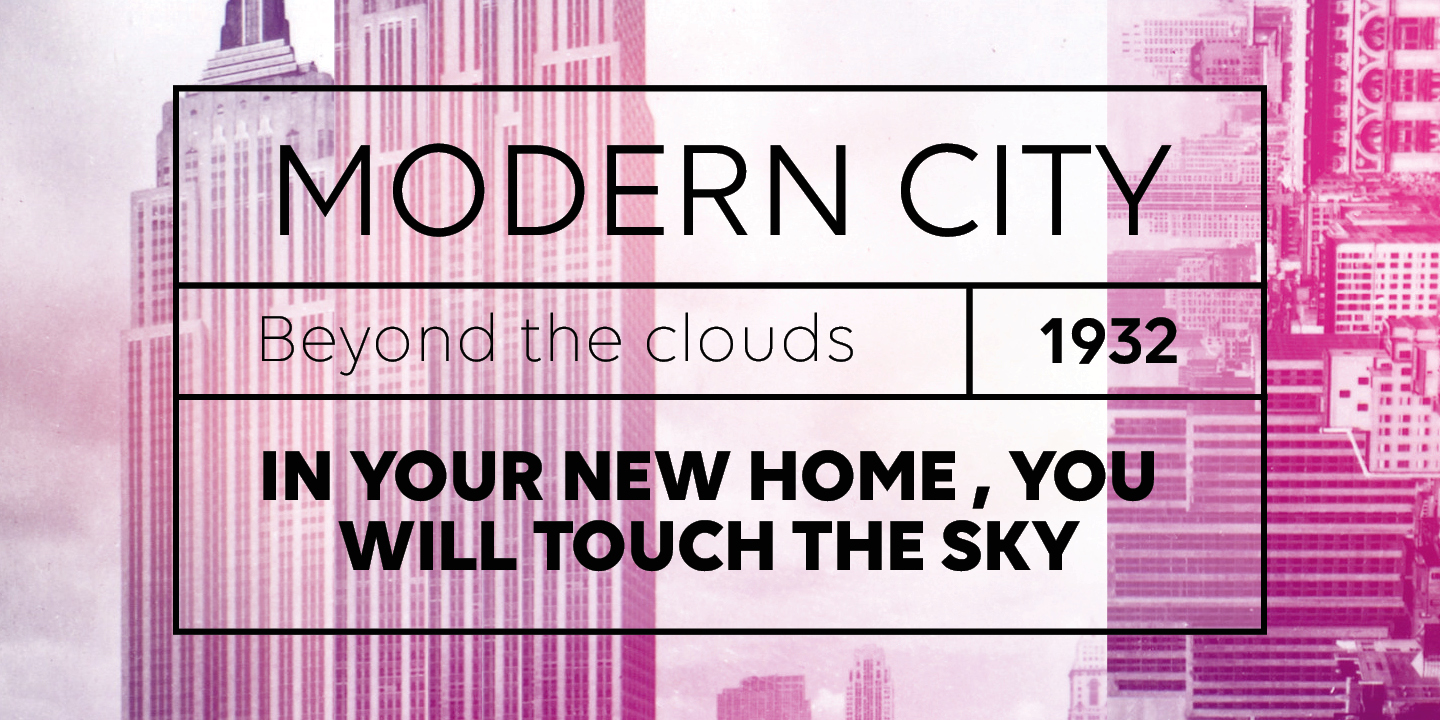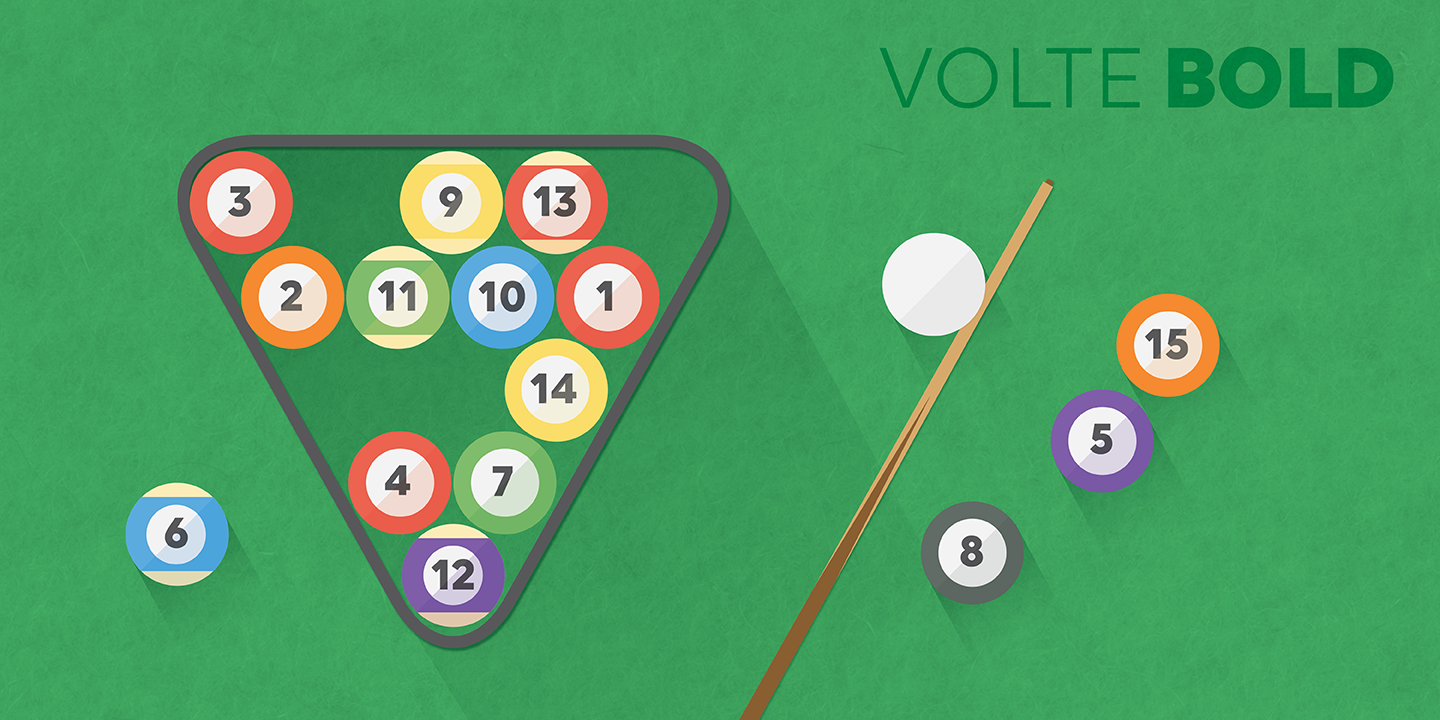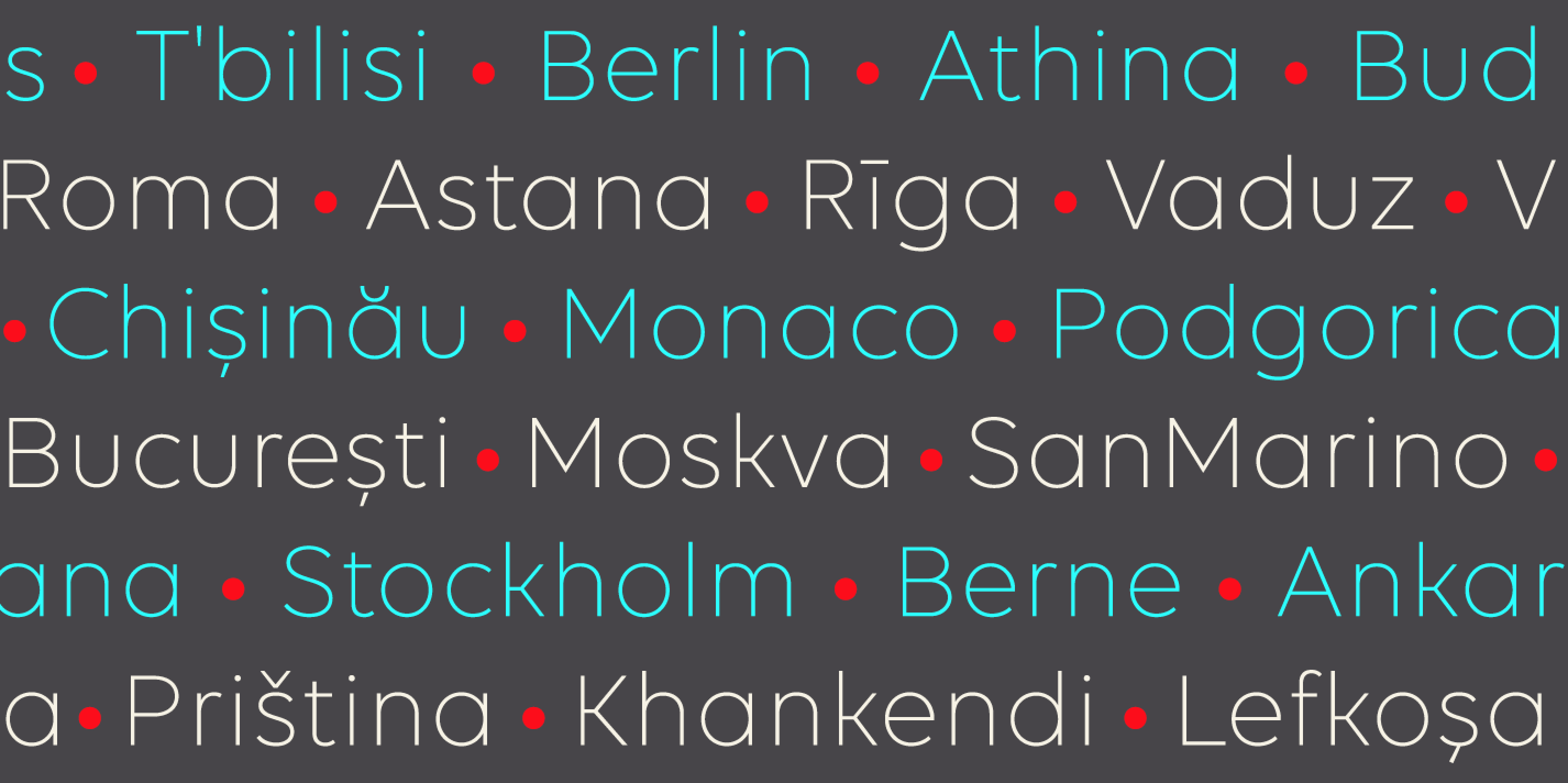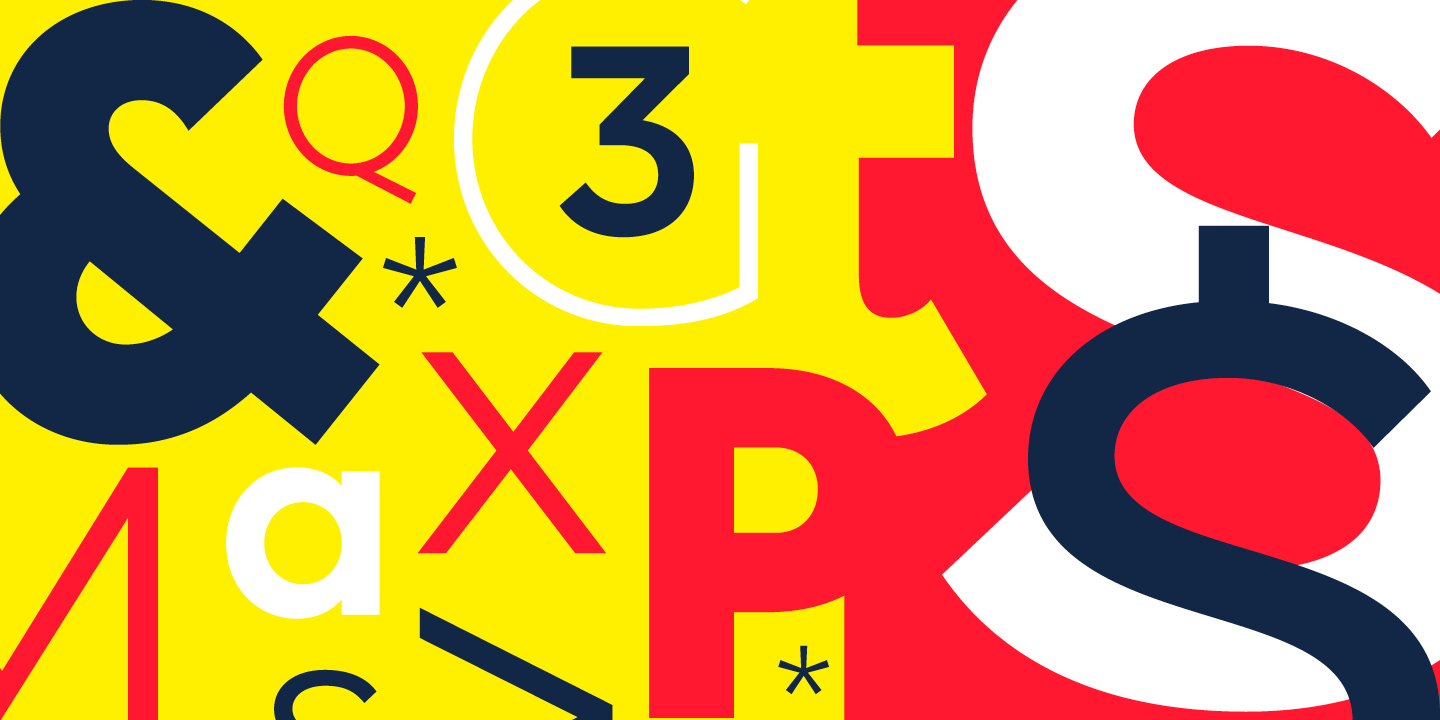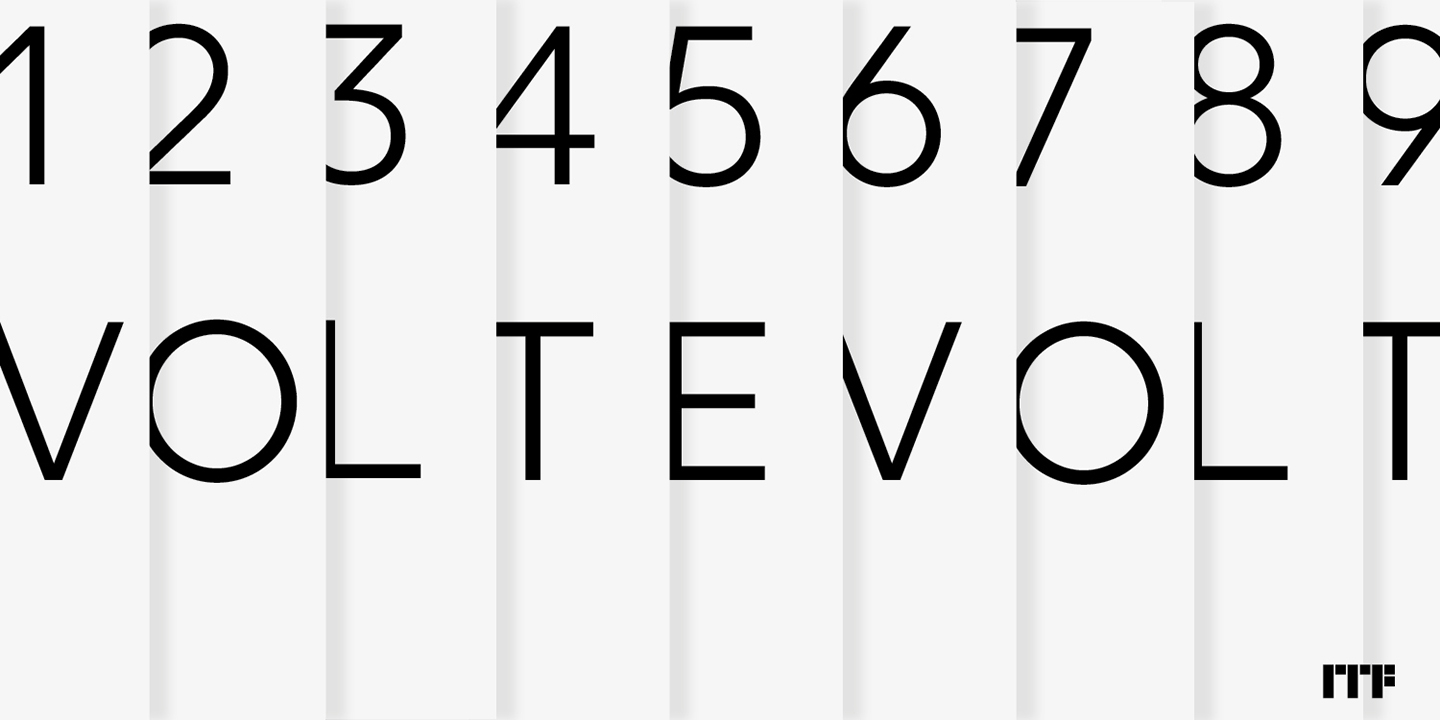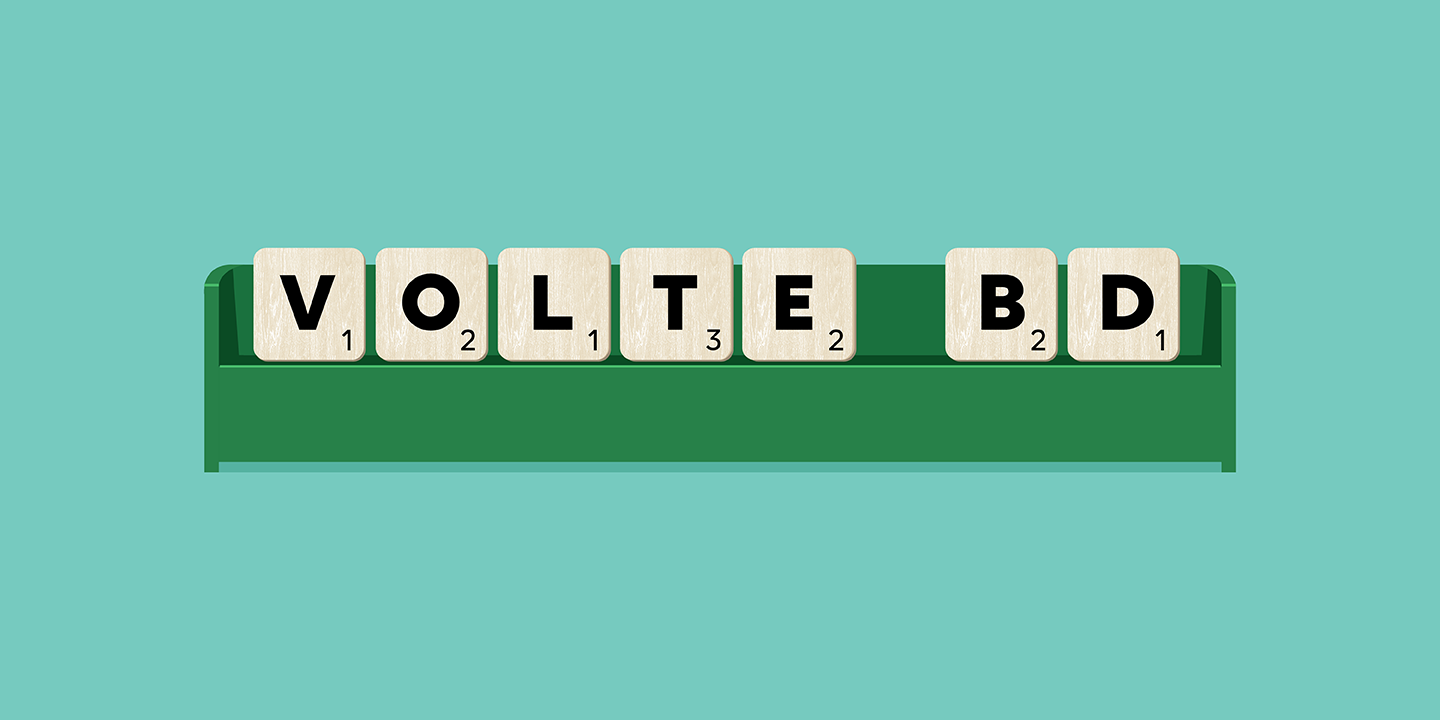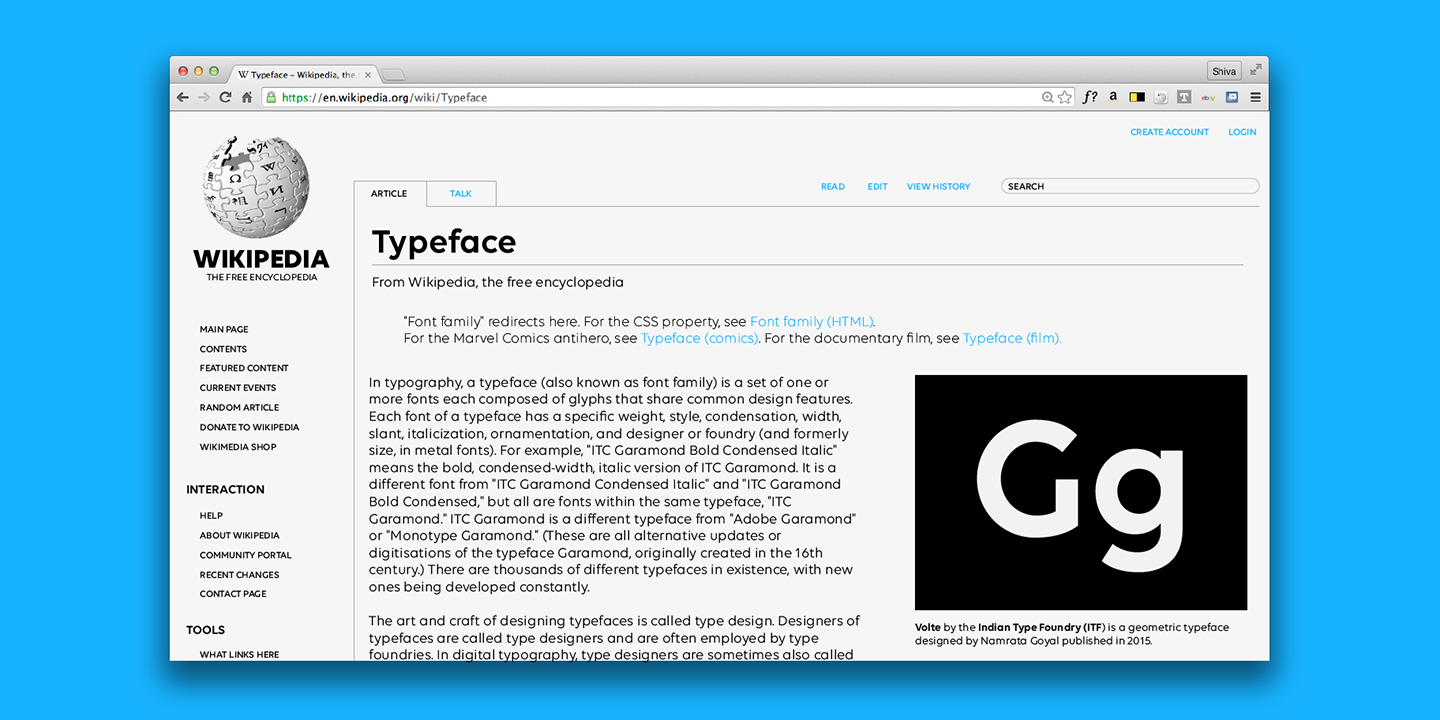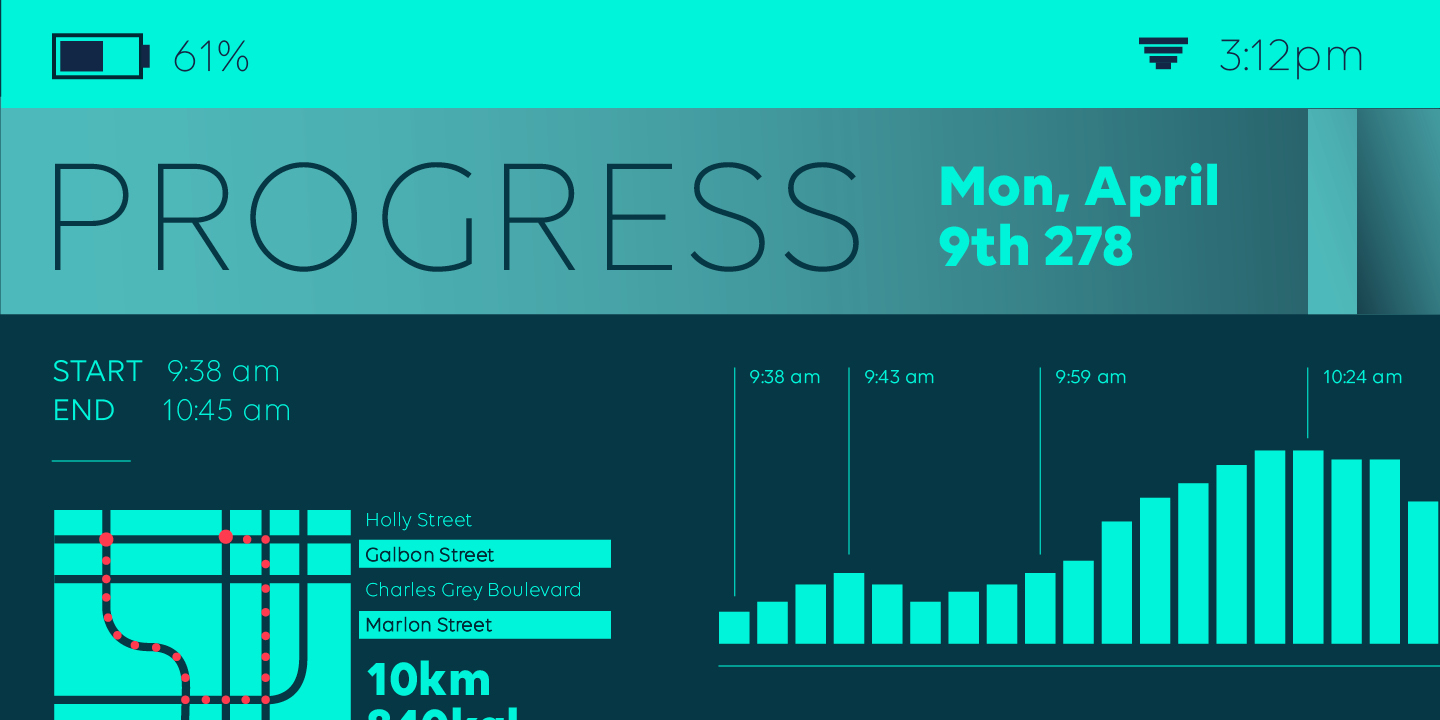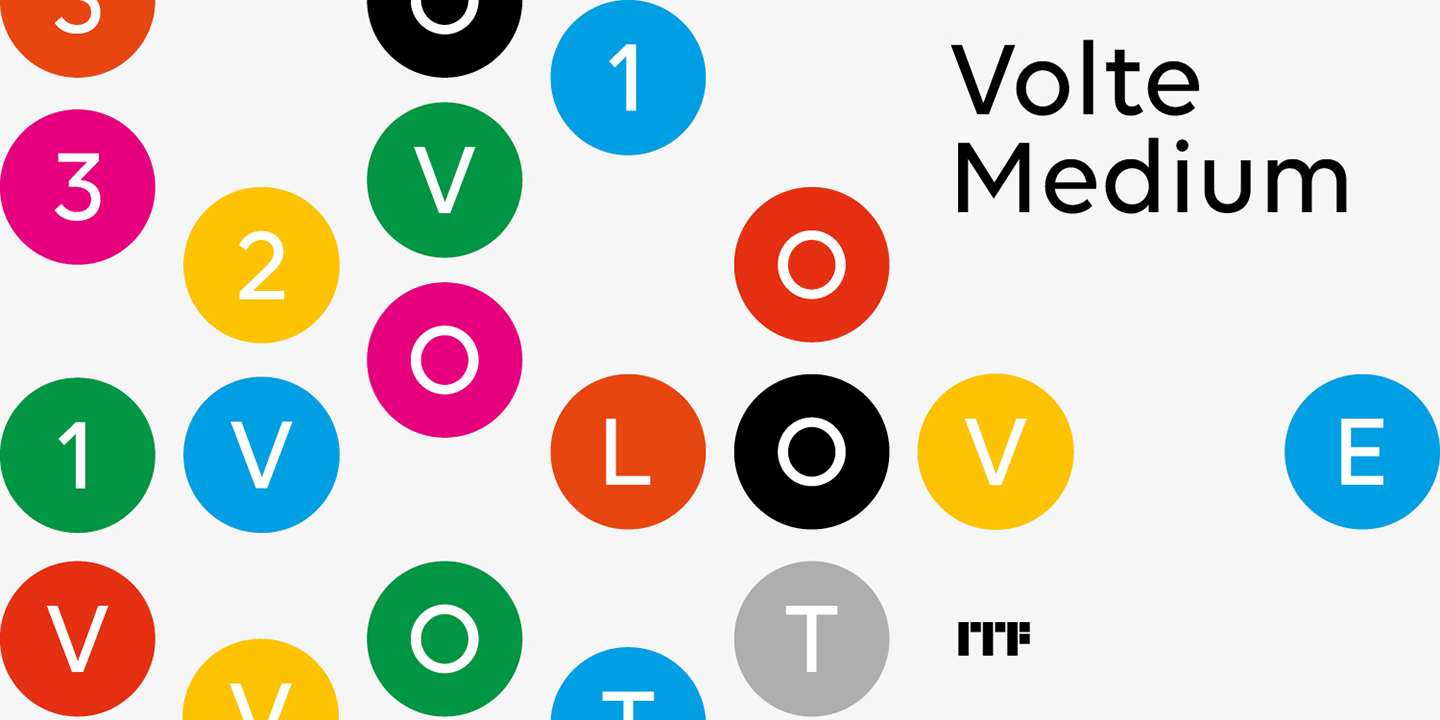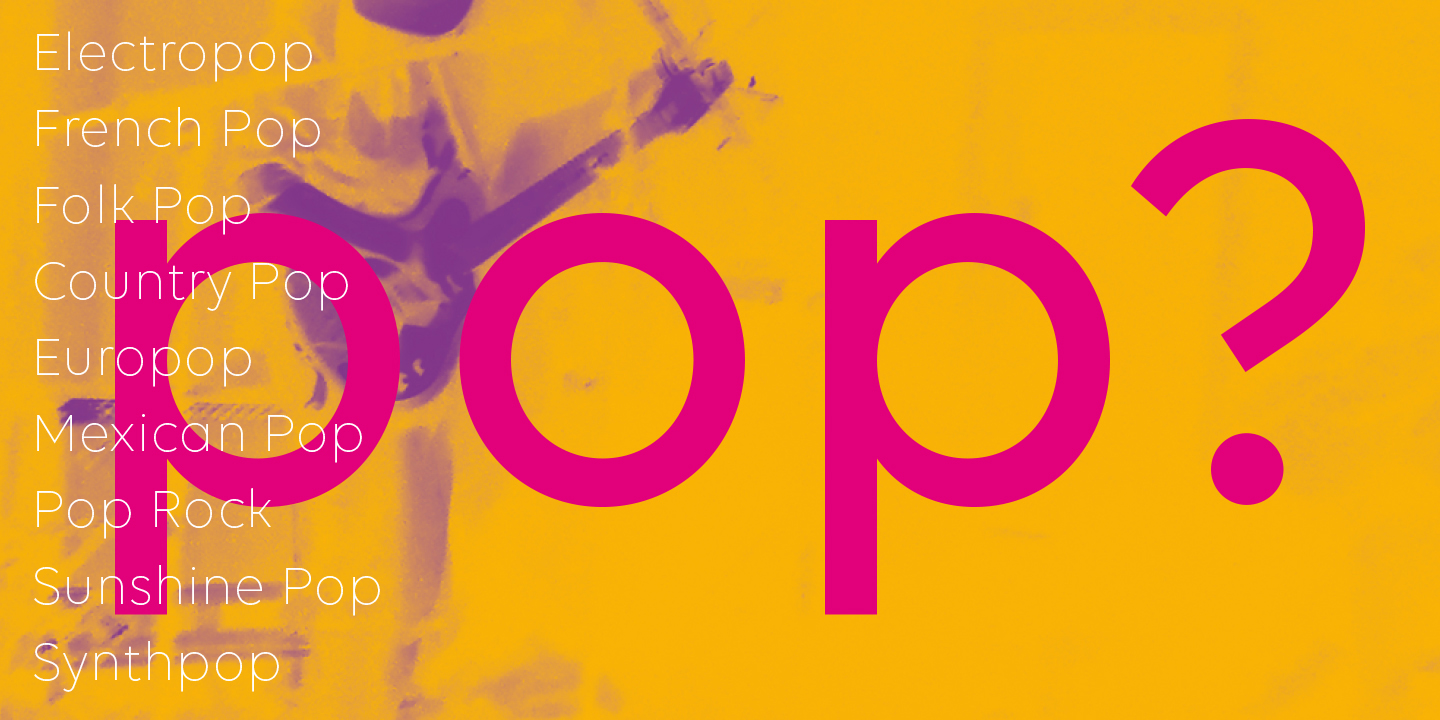
by Indian Type Foundry
Graphic designers always search for new geometric sans faces appropriate for our times. ITF is pleased to present them with Volte. Including the five most essential font weights (Light–Bold), Volte Latin differentiates itself from the geometric sans pack through its simplification and reduction. For a geometric sans, Volte’s letters are very open. Some letters appear constructed, but they all retain the necessary geometric and monolinear spirt. Volte’s openness increases its legibility, too. Coupled with its clear style, this helps make Volte Latin an effective workhorse typeface.
Designer: Namrata Goyal
Design date: 2015